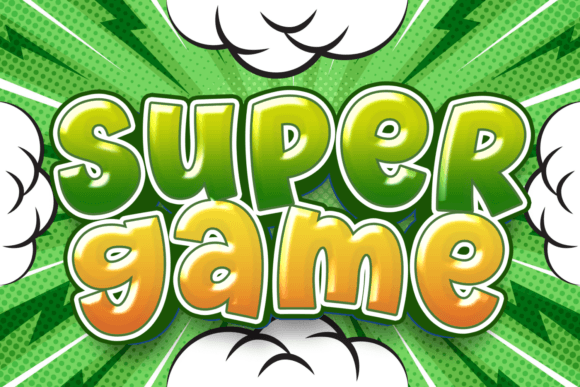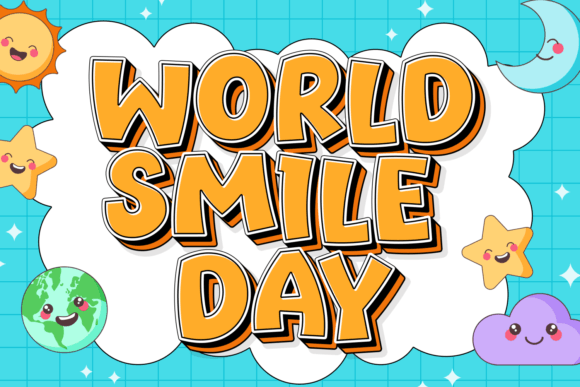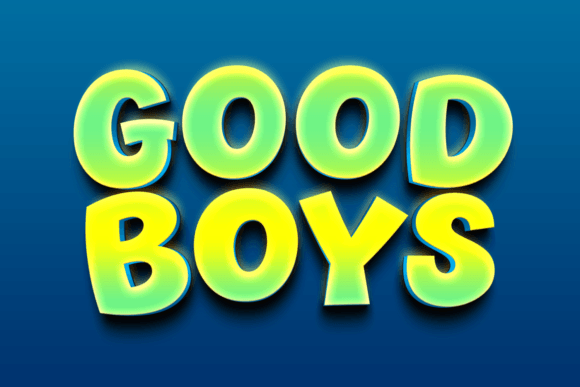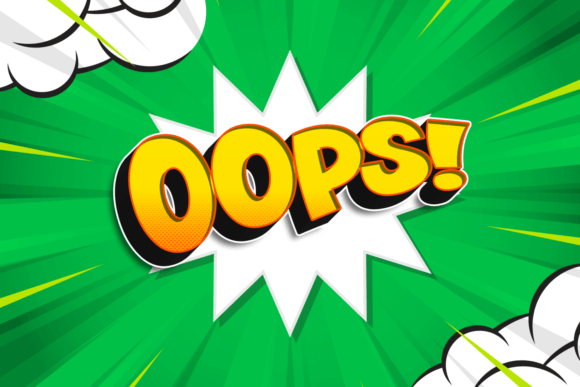
Introducing Comic Unique Font: The Ultimate Choice for Superhero-Themed Designs
Are you a designer or crafter looking for a font that can add a touch of excitement and adventure to your projects? Look no further than Comic Unique, a cartoon display font specifically designed for superhero-themed designs, comic books, movie posters, and any pop culture-related projects. In this article, we’ll explore the features and benefits of Comic Unique, and why it’s the perfect choice for action-packed content.
What is Comic Unique Font?
Comic Unique is a dramatic and eye-catching font that captures the spirit of adventure and heroism. Its unique design is inspired by the classic comic book style, with bold lines, dynamic shapes, and a sense of energy that’s hard to ignore. Whether you’re creating a superhero logo, a comic book cover, or a movie poster, Comic Unique is the perfect font to make your project stand out.
Key Features of Comic Unique Font
- Cartoon Display Font: Comic Unique is a display font designed to grab attention and make a statement. Its bold and playful style is perfect for headlines, titles, and short text passages.
- Superhero-Themed Design: The font’s design is inspired by the classic comic book style, making it perfect for superhero-themed projects, comic books, and movie posters.
- Dramatic Style: Comic Unique has a dramatic style that captures the spirit of adventure and heroism, making it perfect for action-packed content.
- Pop Culture-Related Projects: The font is suitable for any pop culture-related projects, including video game designs, anime, and manga.
Benefits of Using Comic Unique Font
So, why choose Comic Unique for your next project? Here are just a few benefits of using this amazing font:
- Adds Excitement and Adventure: Comic Unique adds a touch of excitement and adventure to your projects, making them more engaging and attention-grabbing.
- Perfect for Action-Packed Content: The font’s dramatic style makes it perfect for action-packed content, such as superhero-themed designs, comic books, and movie posters.
- Easy to Read: Despite its bold and playful style, Comic Unique is easy to read, even at small sizes.
- Customizable: The font is highly customizable, allowing you to adjust the size, color, and style to fit your project’s needs.
How to Use Comic Unique Font
In conclusion, Comic Unique is a fantastic font that’s perfect for designers and crafters looking to add a touch of excitement and adventure to their projects. Its dramatic style, bold lines, and dynamic shapes make it the perfect choice for superhero-themed designs, comic books, movie posters, and any pop culture-related projects. With its ease of use, customizability, and attention-grabbing style, Comic Unique is a must-have font for any designer or crafter looking to create action-packed content.